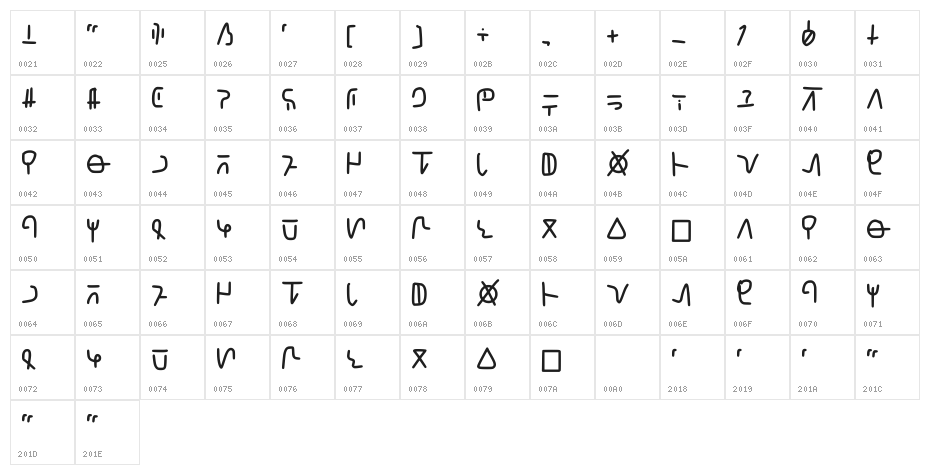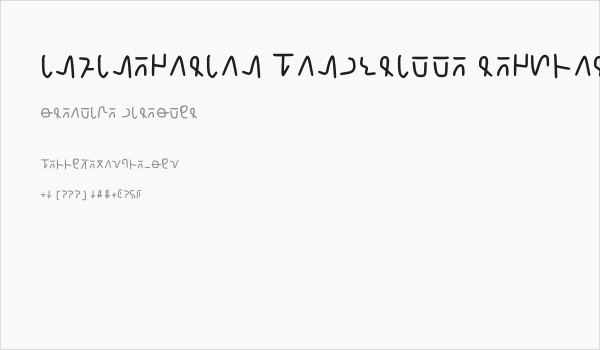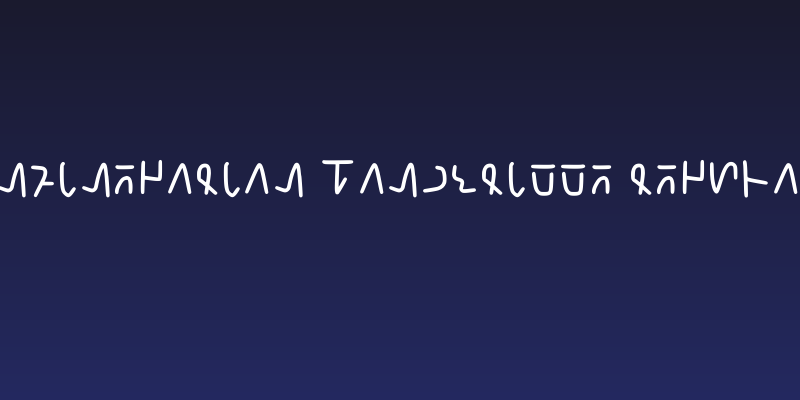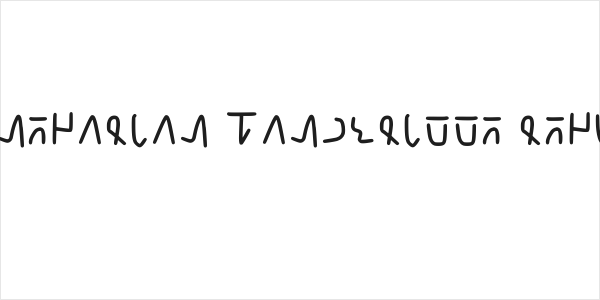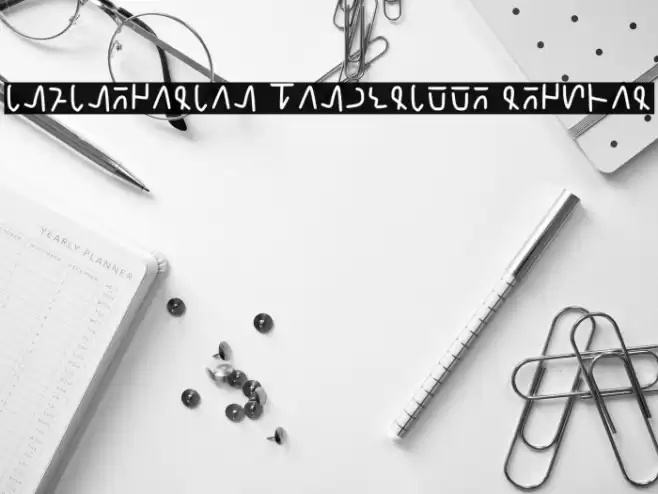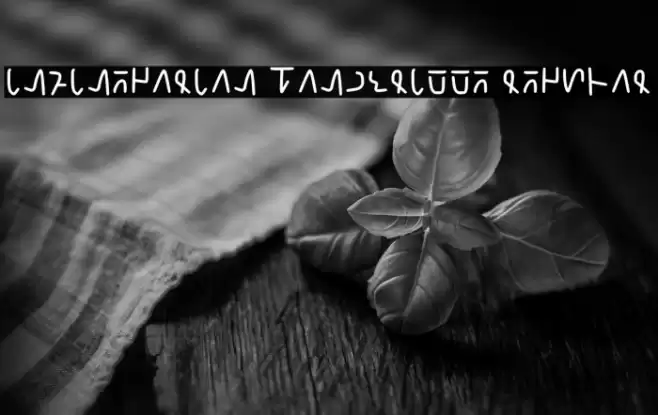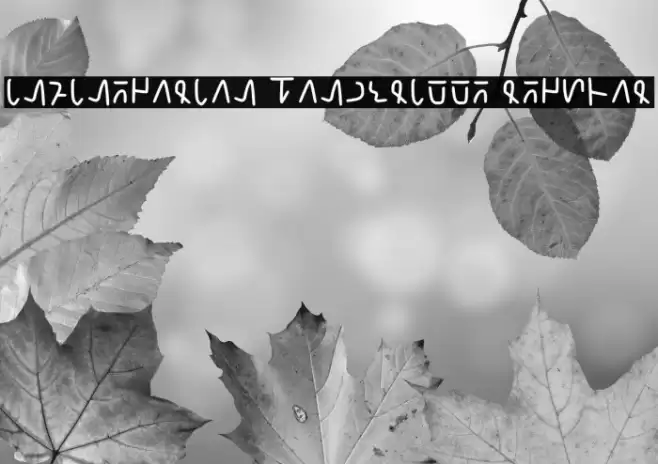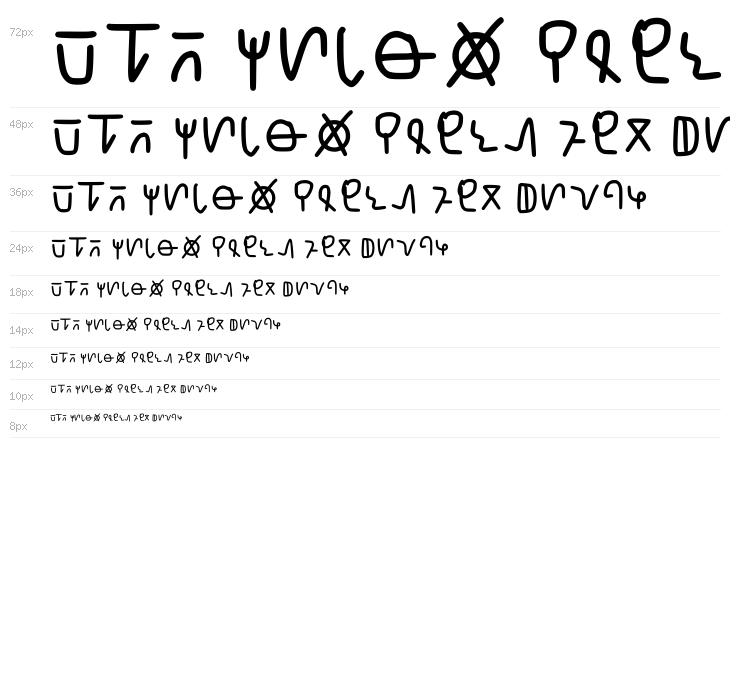
Infinegarian Handwritte Regular Font
Infinegarian Handwritte Regular Description
This font features a unique, handwritten style that mimics the fluidity and spontaneity of natural handwriting. The characters are crafted with a casual and informal touch, showcasing uneven strokes and playful curves. The overall appearance is organic and free-spirited, making it ideal for projects that require a personal and approachable feel. The letters are slightly tilted, adding to the dynamic and lively nature of the font. The spacing between characters is irregular, contributing to its authentic handwritten look. This font is perfect for creative projects that aim to convey warmth and personality.
| Overall Style | Casual, Organic |
| Use Case | Creative projects, Informal communication |
| Proposed Projects | Greeting cards, personal invitations, creative posters, and informal branding. |